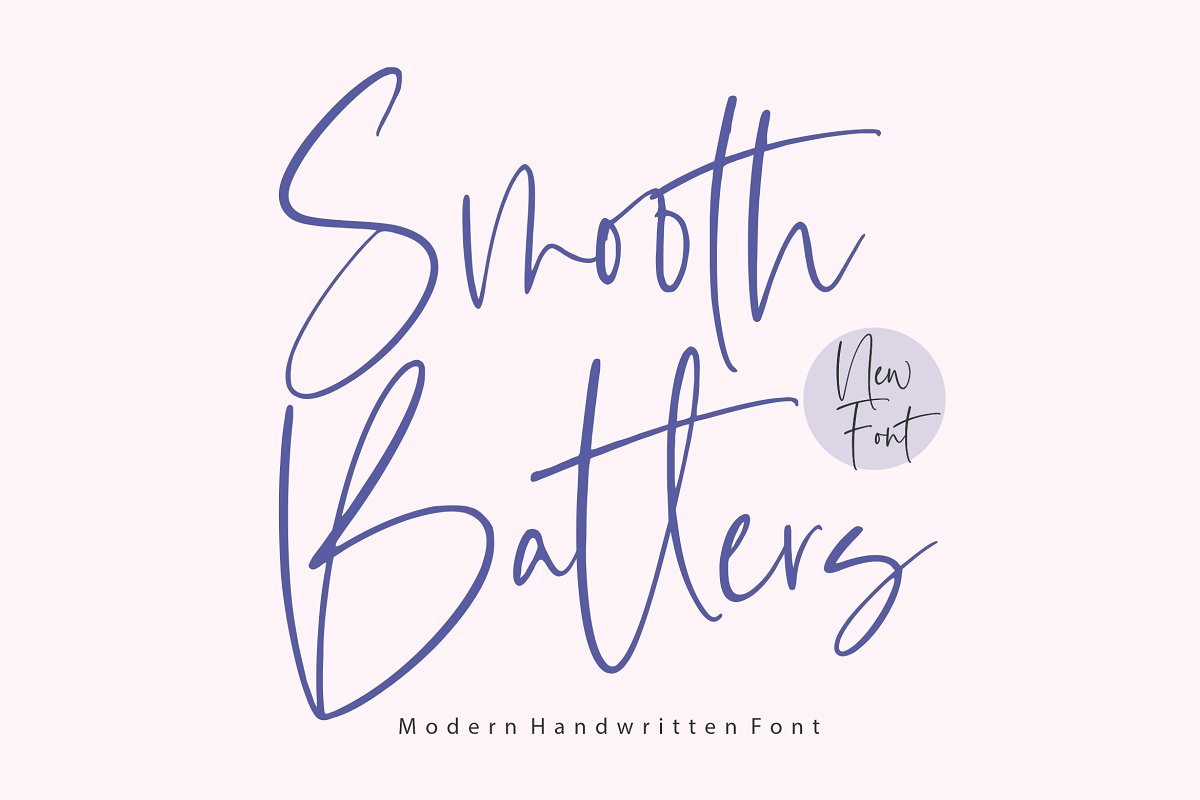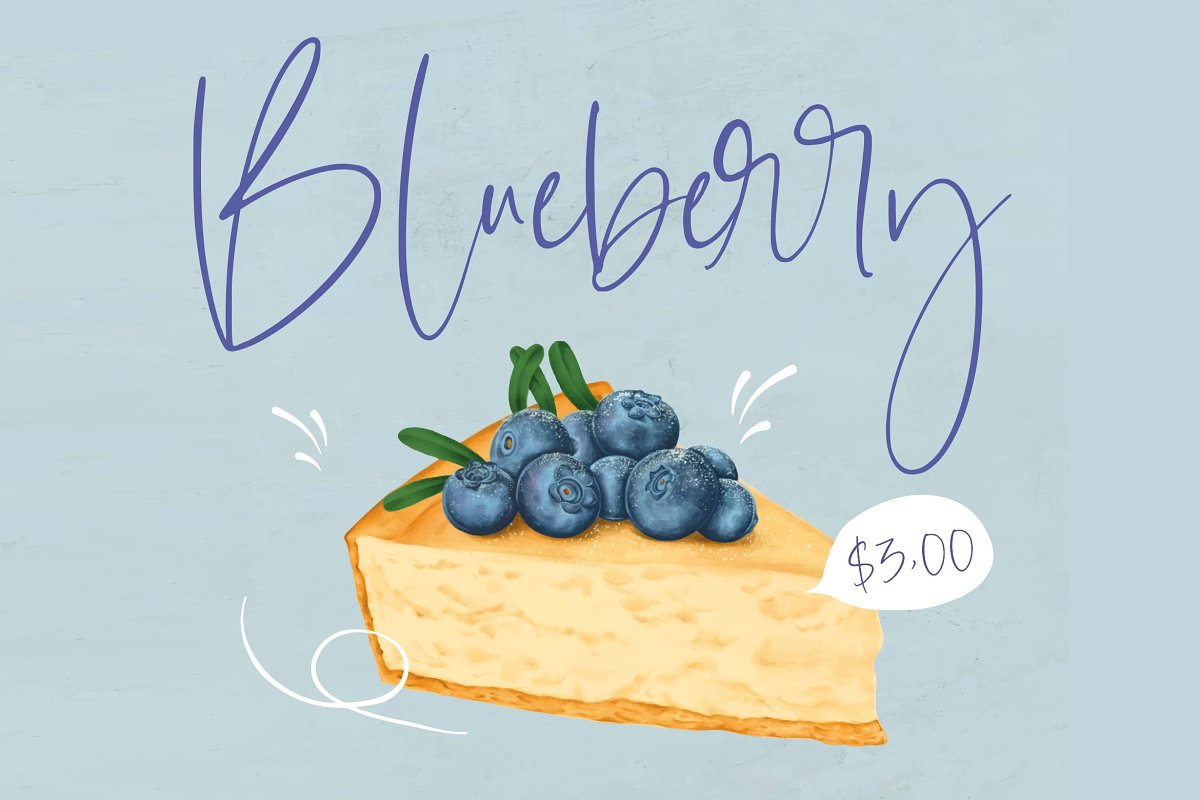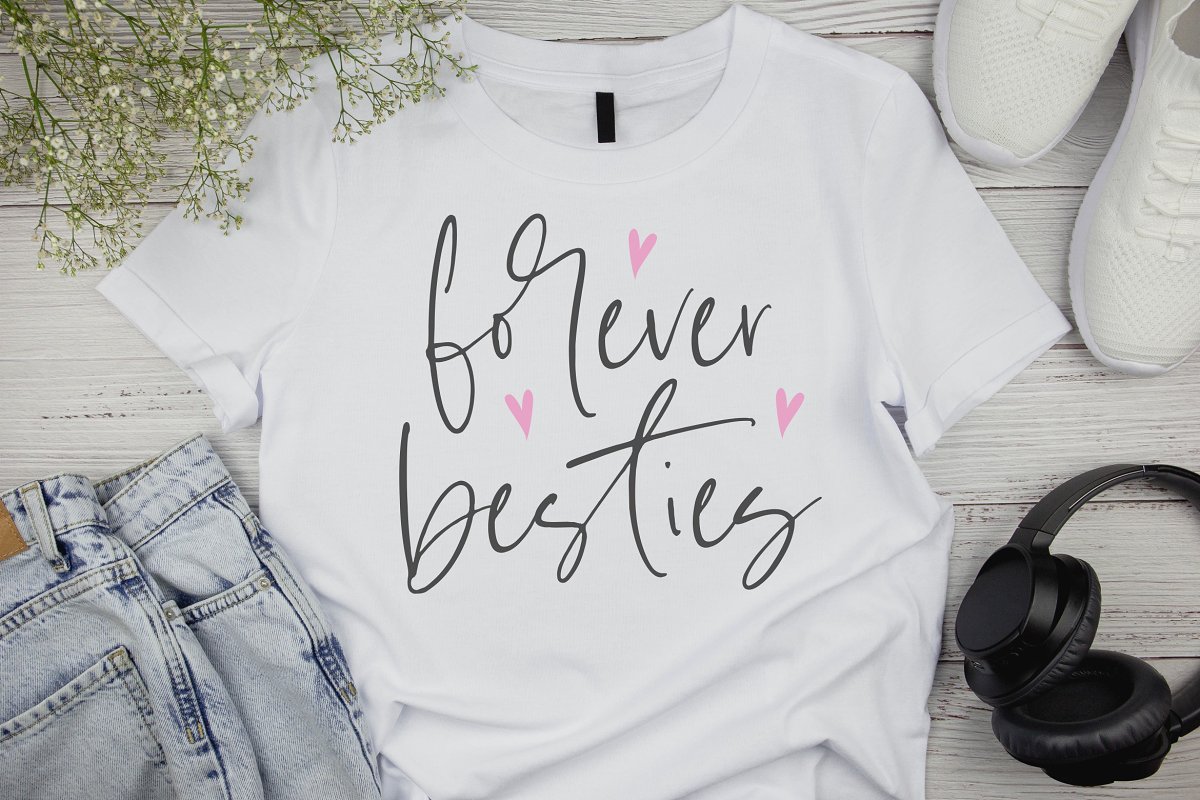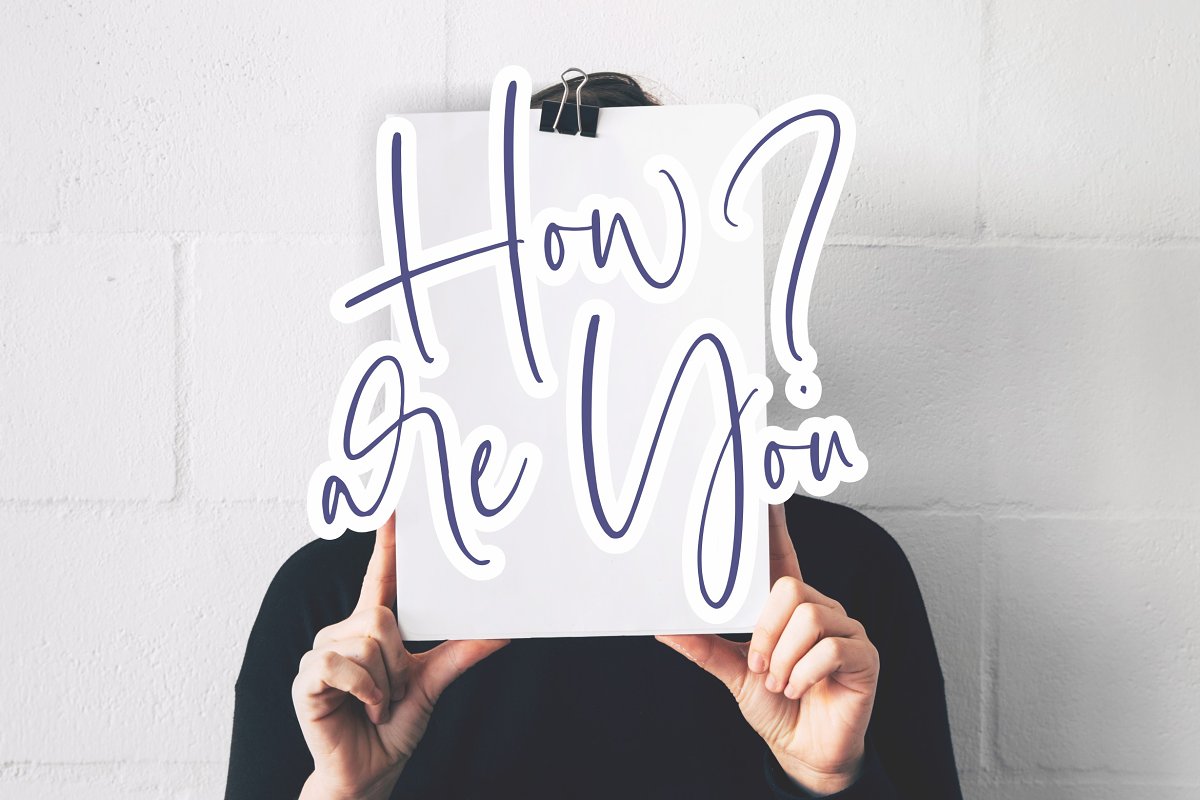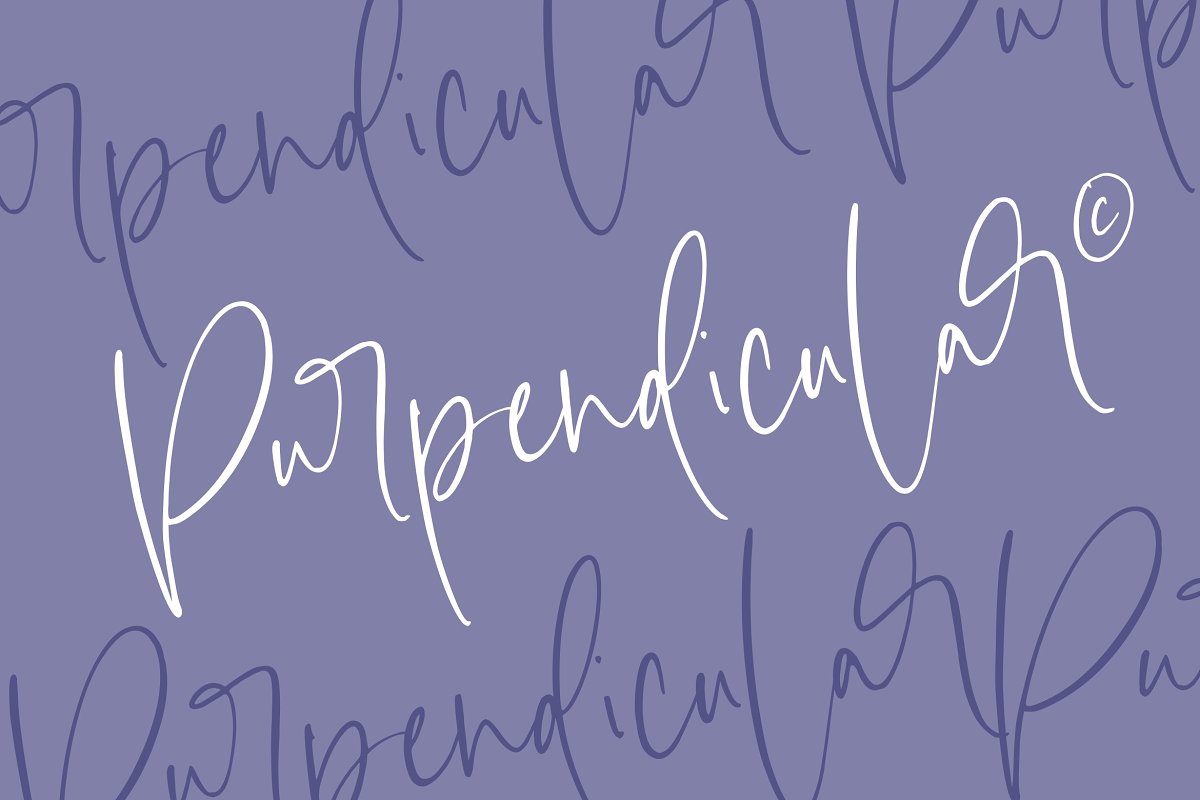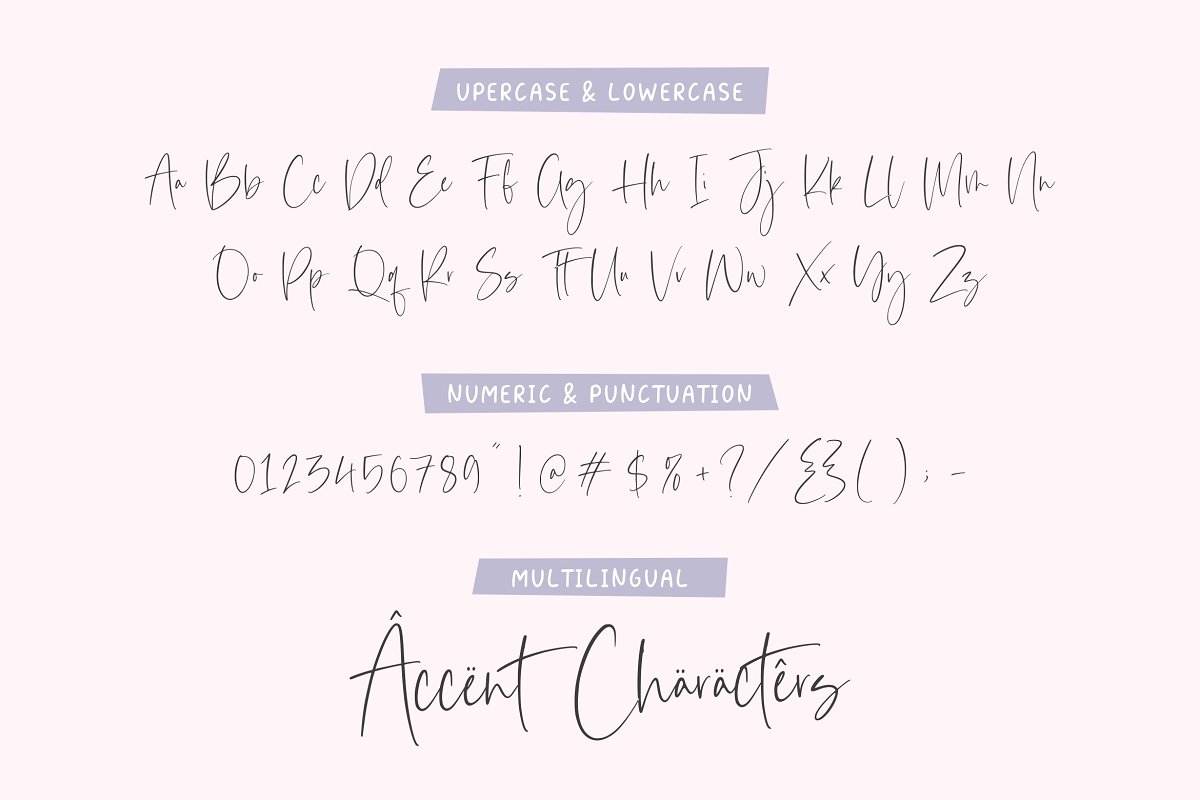
About the Smooth Batters Handwritten Font
Proudly Present, Smooth Batters Font
Smooth Batters feels equally charming and elegant. It looks stunning on wedding invitations, thank you cards, quotes, greeting cards, logos, business cards and every other design which needs a customized touch.
- also multilingual support
- Ligatures